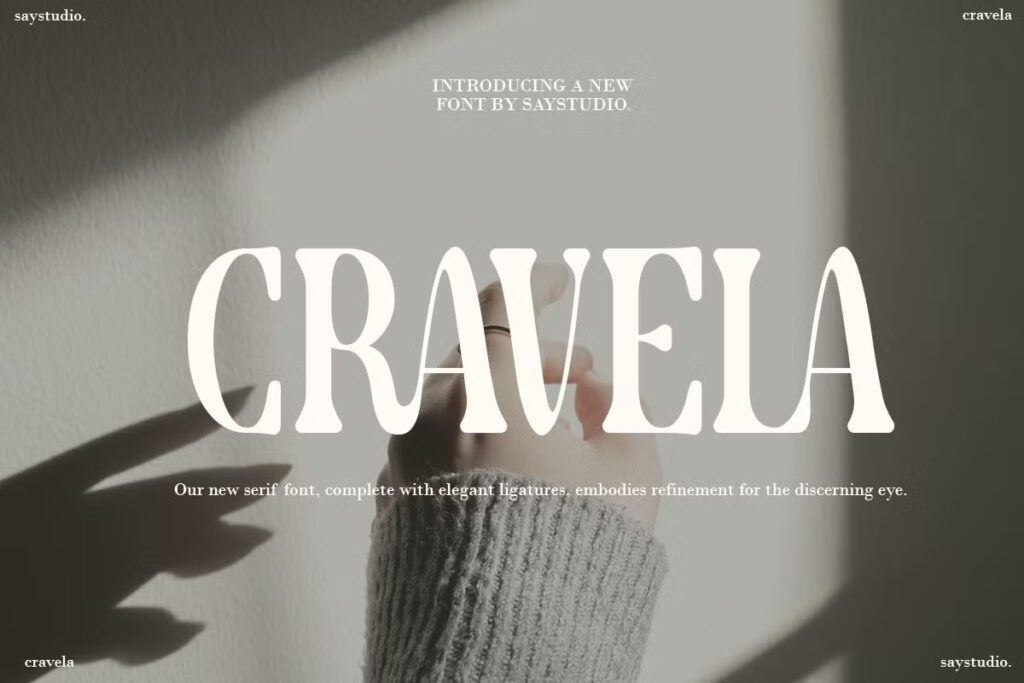
Cravela: The Modern Serif Font for Luxury and Class
If you’re searching for a font that exudes elegance, luxury, and modernity, Cravela is the answer. This modern serif font is the ideal choice for graphic designers looking to add a touch of class to their projects. Whether you’re working on branding, logos, or any commercial design, Cravela delivers a perfect balance of style and sophistication.
What is Cravela?
Cravela is a sleek and stylish serif font designed with versatility in mind. It comes in two variations—Regular and Italic—making it adaptable to a wide range of design needs. Whether you’re creating logos, wedding invitations, or high-end branding materials, Cravela offers a timeless appeal that enhances the quality and visual impact of your designs.
Key Features of Cravela
Modern Serif Style:Cravela combines the elegance of a serif font with modern aesthetics, making it the perfect choice for projects that require a luxurious and contemporary feel.
Two Variations:The font is available in both Regular and Italic versions, giving you the flexibility to create dynamic, visually appealing text layouts.
Ideal for Branding and Logos:Cravela is particularly well-suited for branding projects. Its refined design makes it ideal for logos, packaging, and editorial work that require a touch of sophistication and professionalism.
Optional Ligatures for High Fashion:Cravela includes optional ligatures that add an extra layer of elegance, perfect for high-fashion and luxury design projects. These ligatures create a seamless flow between letters, giving your typography a polished and refined look.
Versatile and Timeless:Whether you’re working on wedding invitations, corporate branding, or product packaging, Cravela’s timeless style ensures your designs will stand out with class and elegance.
Why Choose Cravela for Your Design Projects?
Elegant and Classy:Cravela brings a luxurious, high-end feel to any design project, making it the perfect choice for fashion, lifestyle, and luxury brands.
Perfect for Commercial Use:This font is versatile enough to be used in various commercial design applications, including logos, websites, wedding designs, and product packaging.
Effortless to Use:Cravela is designed to be user-friendly, allowing designers to scale it to any size without compromising quality. The clean lines and stylish ligatures make it an effortless addition to your font collection.
How to Use Cravela in Your Projects
Branding and Logos:The sophisticated design of Cravela makes it perfect for luxury branding projects. Whether you’re creating a logo for a high-end brand or working on corporate branding, Cravela’s modern serif style ensures that your design stands out.
Wedding Invitations:For wedding designs, Cravela’s elegant curves and stylish ligatures add a personal touch of class and beauty, making invitations look timeless and romantic.
Commercial Design Projects:From product packaging to magazine layouts, Cravela’s adaptability allows it to be used across various platforms, ensuring consistency and elegance in every design.